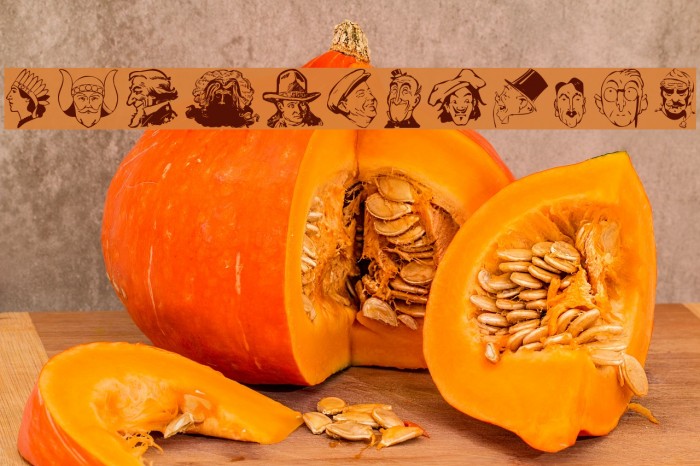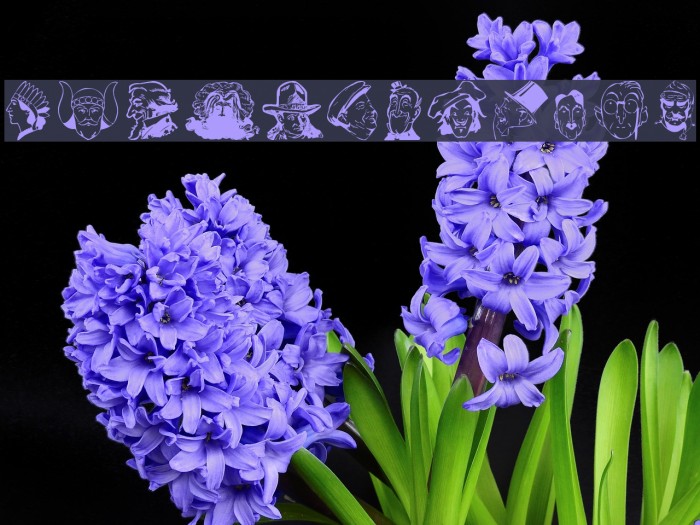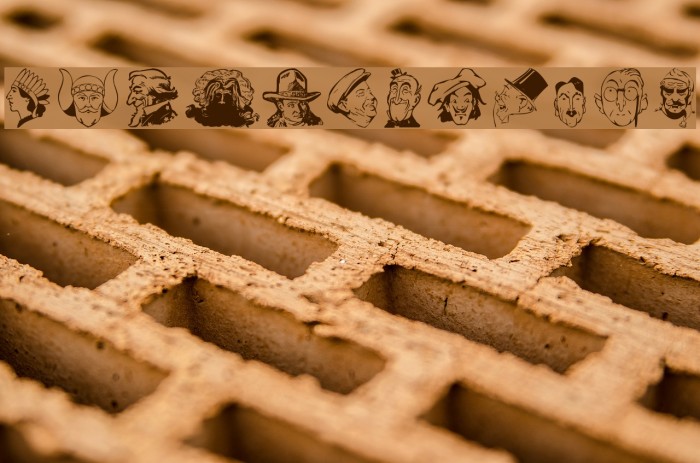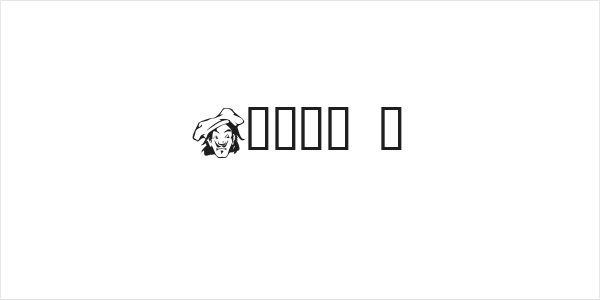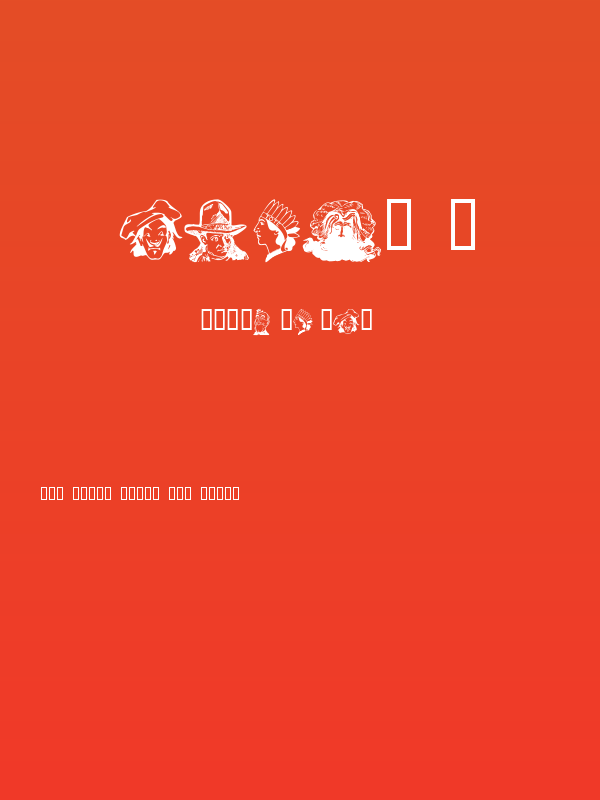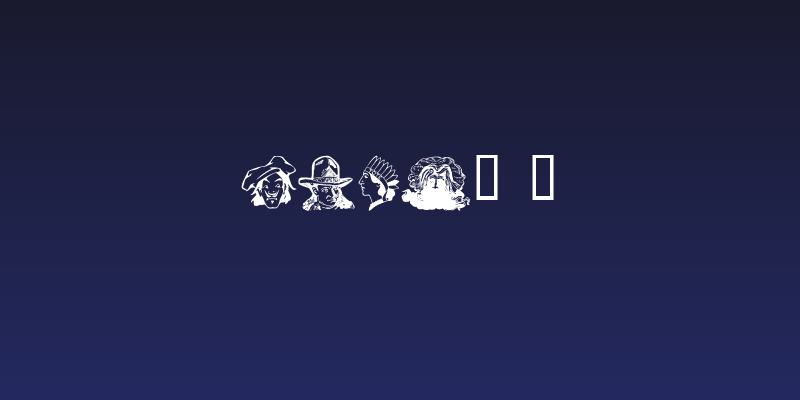
Heads 1 Font
Heads 1 Description
A decorative display set featuring detailed, illustrated caricature heads in various styles and costumes, each representing a different character or persona. The glyphs are highly stylized and artistic, focusing on expressive facial features and headwear.
Overall StyleDecorative, Vintage, Artistic
Use CaseLogos, Headlines, Themed graphics, Illustrative accents
Proposed ProjectsPosters, comic book titles, themed event invitations, novelty branding, editorial illustrations.